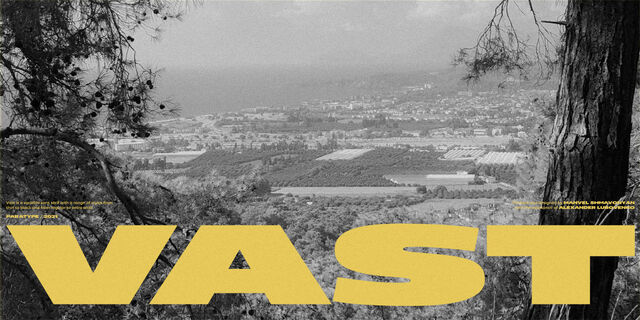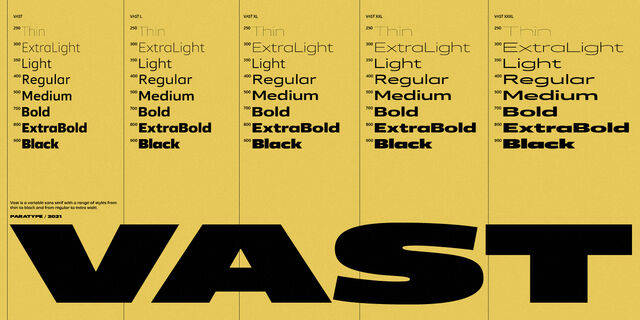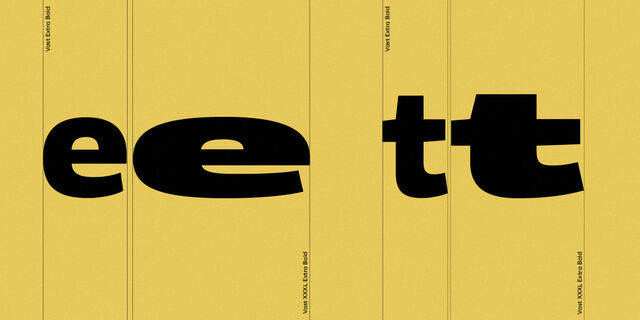
Vast (56 fonts)
About VastVast is a sans serif with a range of styles from thin to black and from normal to extra wide. This versatile font family of both of a serious and friendly nature can be used for various purposes, such as text, logos, headings, and branding.
Vast was designed by Manvel Shmavonyan with the assistance of Alexander Lubovenko and released by Paratype in 2021.